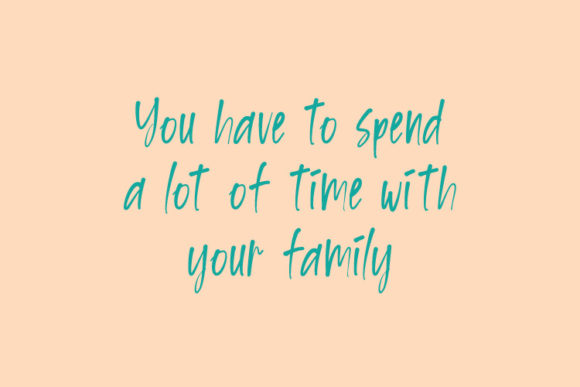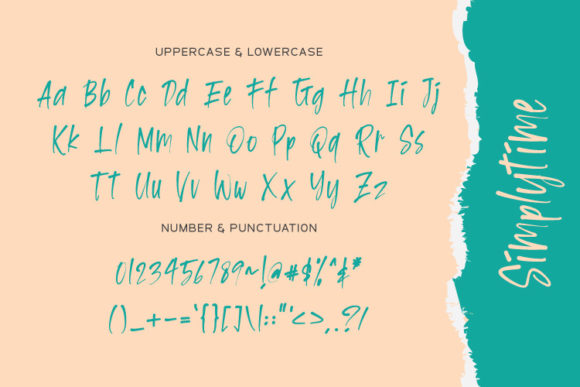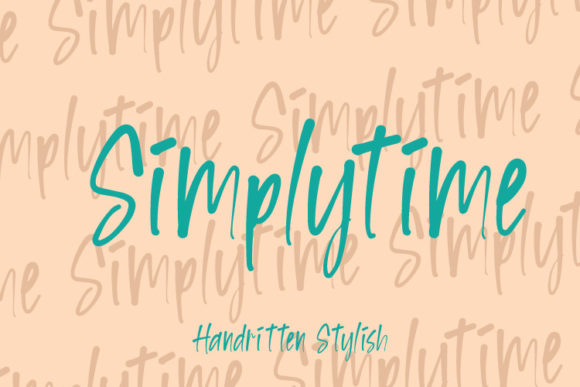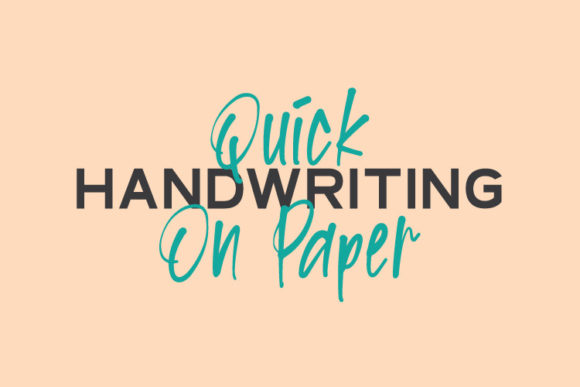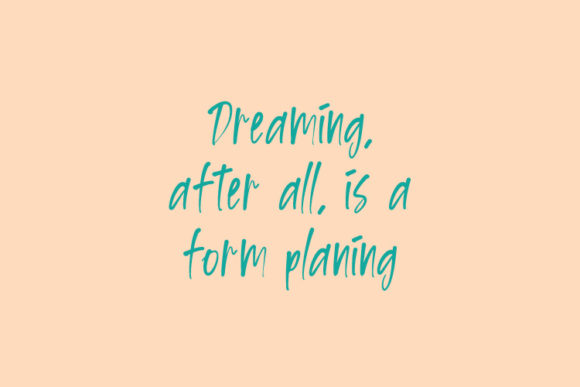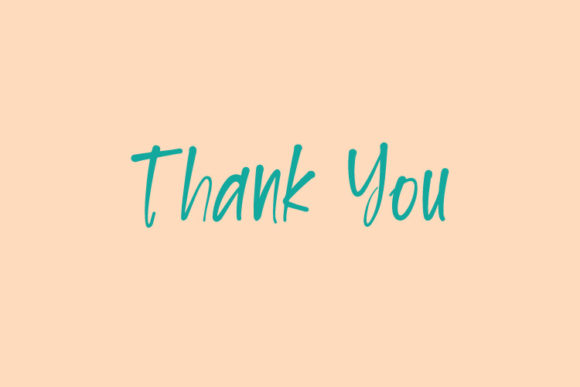
Introduction to Simplytime Font
Have you ever found yourself staring at a blank page, waiting for the perfect font to bring your creative project to life? I’m sure many of us have been there, searching for that elusive design resource that sets our work apart. But what if I told you that I’ve discovered a hidden gem that’s about to revolutionize the way you design? Say hello to the Simplytime Font, a fresh, casual, and relaxed handwritten font that’s perfect for anything from poster designs to book covers.
This high-quality font is a game-changer for designers, offering a transparent background that makes it incredibly versatile. Whether you’re working on a free download project or a paid client, the Simplytime Font is sure to impress. Its relaxed and casual vibe makes it ideal for a wide range of creative projects, from fashion campaigns to greeting cards. In this article, we’ll dive deeper into the world of the Simplytime Font and explore its many uses and benefits.
Key Features of Simplytime Font
- Simplytime Font offers a transparent background, allowing for seamless integration with any design.
- Unique characteristic: The Simplytime Font features a clean and modern design, perfect for creating a professional and sleek look in any creative project.
Honest Review: Simplytime Font
I recently had the chance to work with the Simplytime Font, and I must say, it’s a great addition to any design resource. The high-quality font is perfect for creative projects that require a modern and sleek look.
Here are some key features of the Simplytime Font:
- High-quality font with a modern aesthetic
- Transparent background for flexible design
- Suitable for a wide range of creative projects, from logos to infographics
Limitations: ⚠️ While the font is high-quality, it may not be suitable for projects that require a more traditional or formal look. Additionally, the font’s simplicity may make it less versatile for complex designs.
Overall, I’m impressed with the Simplytime Font. It’s a great resource for designers looking for a modern and sleek font for their creative projects. With its high-quality design and free download, it’s a must-have for any design library.
Simplytime Font
Tips for Getting the Most Out of Simplytime Font
For optimal results, use the Simplytime Font with a transparent background and adjust the font size and style according to your design needs.
Common Use Cases for Simplytime Font
The Simplytime Font is ideal for various creative projects, including logo designs, branding materials, and presentations.
Can I customize the Simplytime Font for my specific design needs?